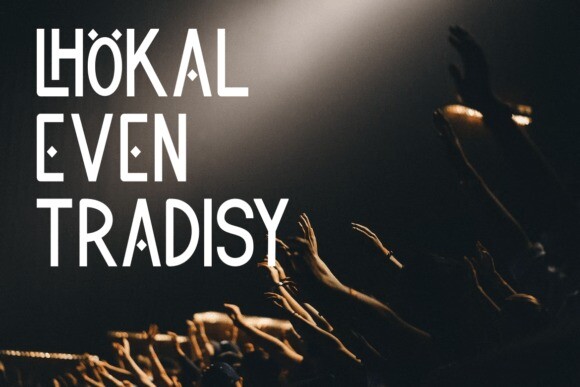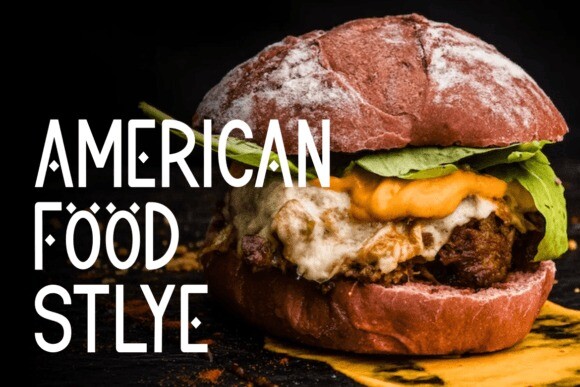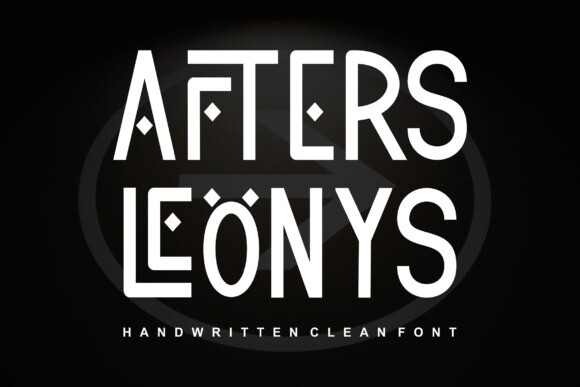
Aftersleonys Font
AftersLeonys Font  – Modern Font is a bold and authentic display font. The font is suitable for any branding project like logo, t-shirt printing, esport, and many more. outstanding in a wide range of contexts.